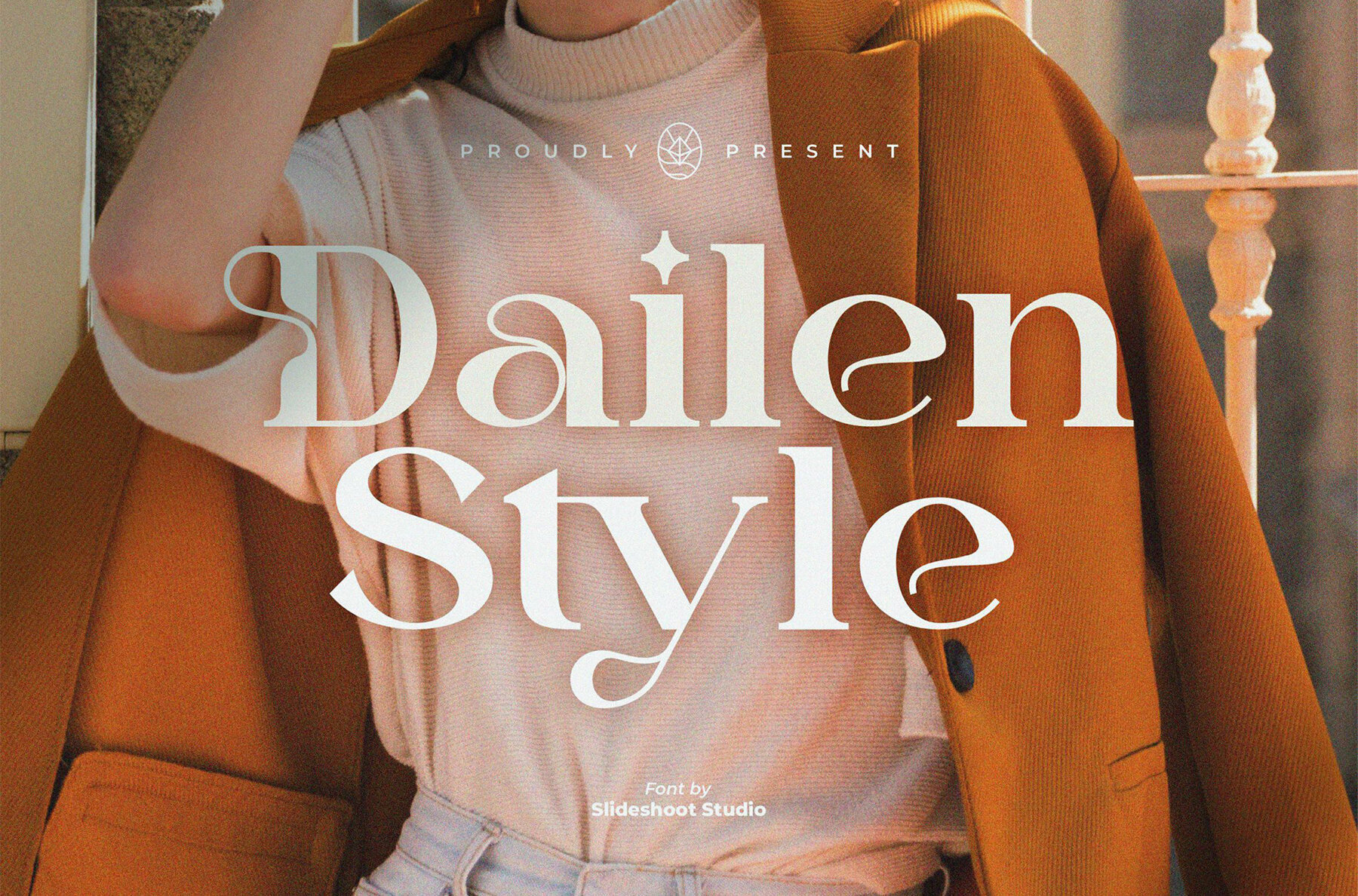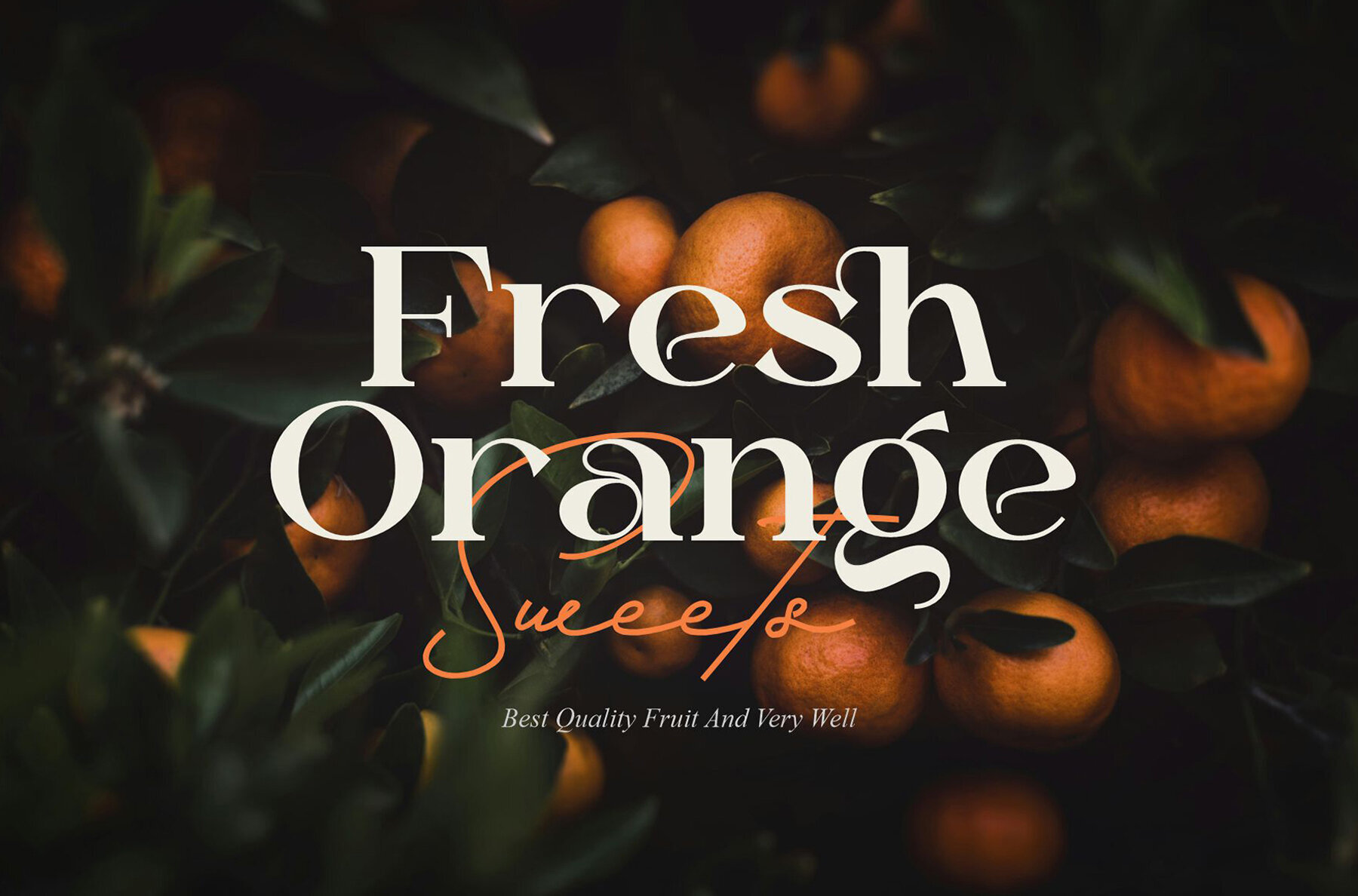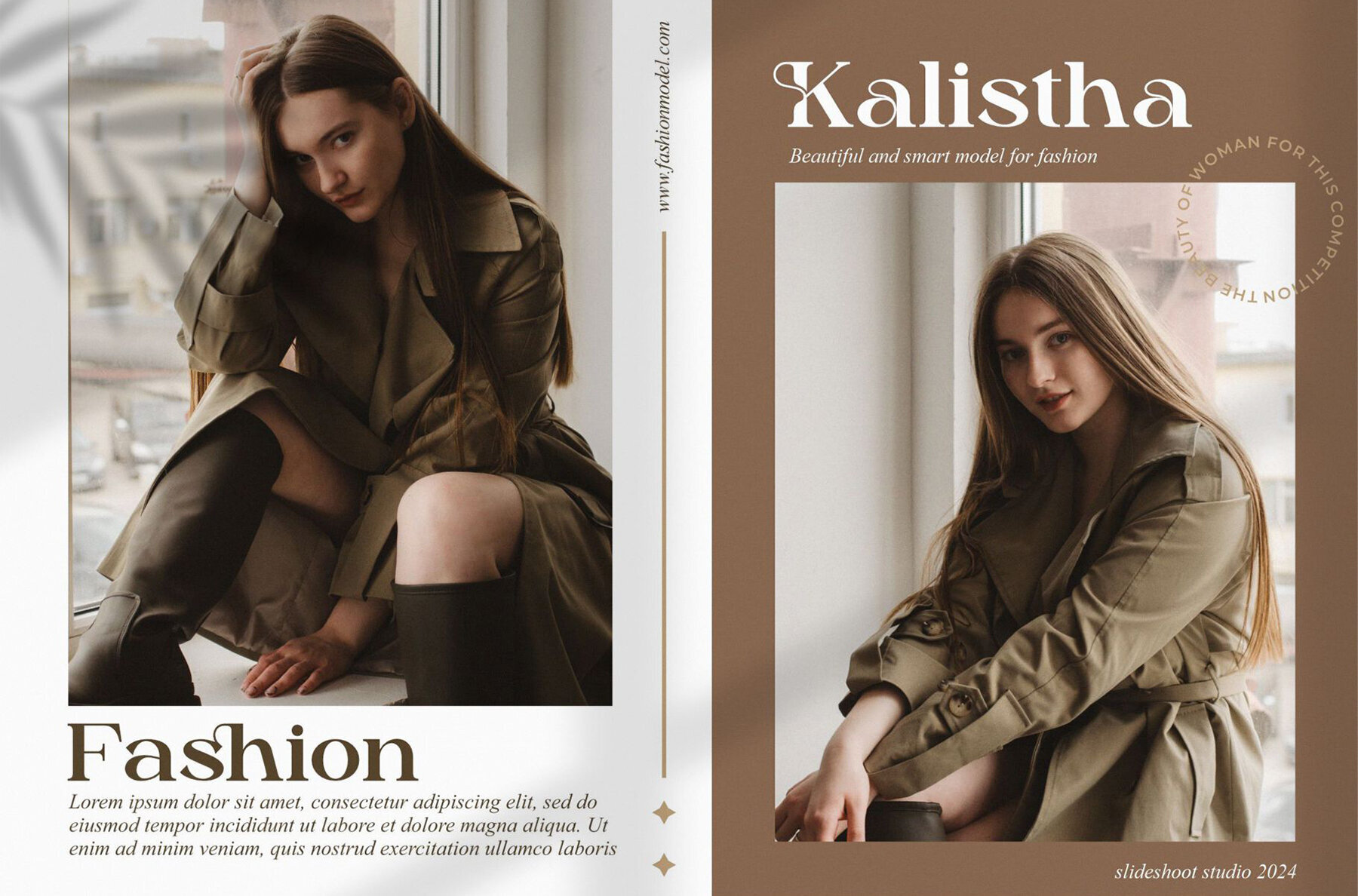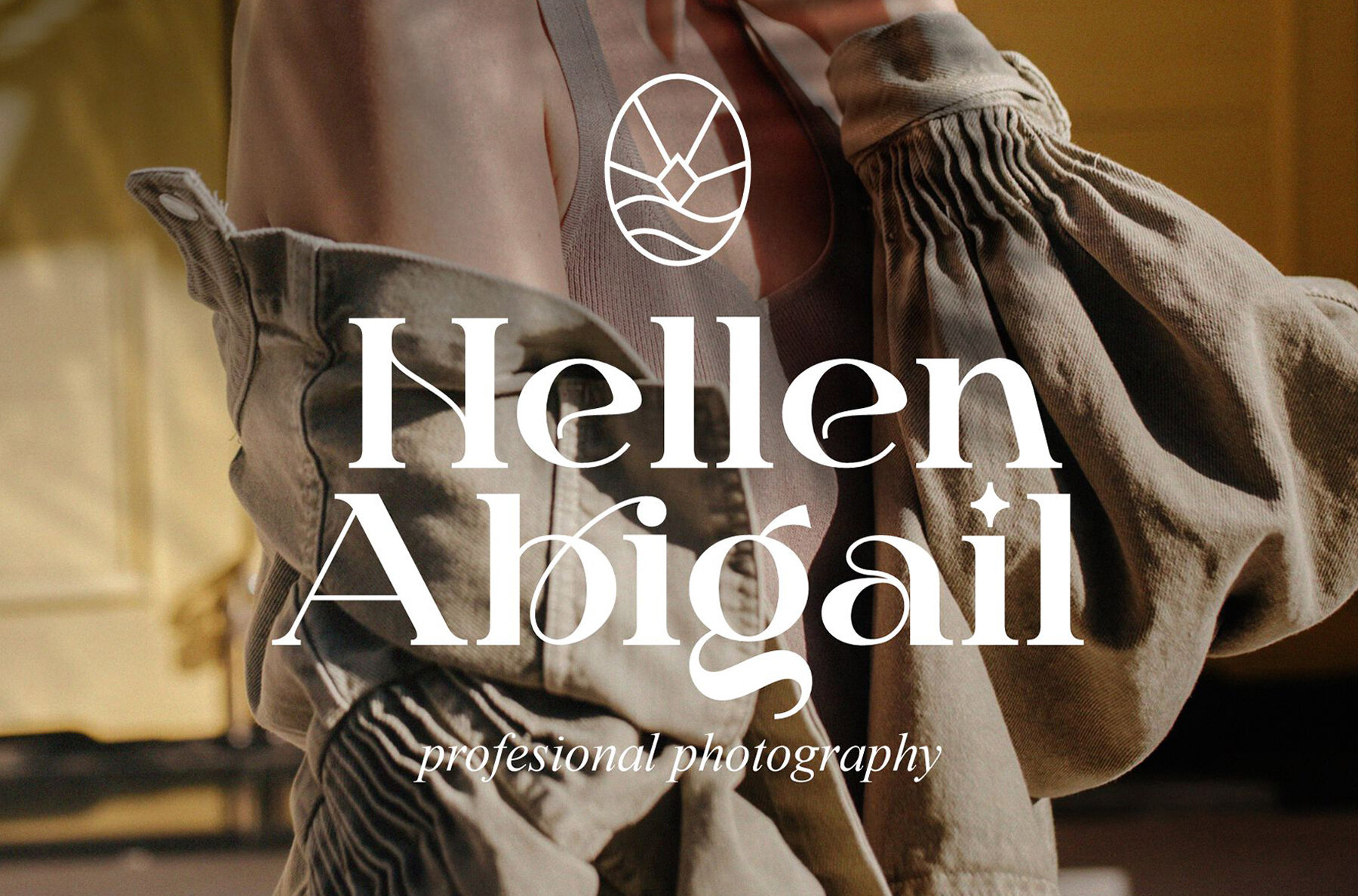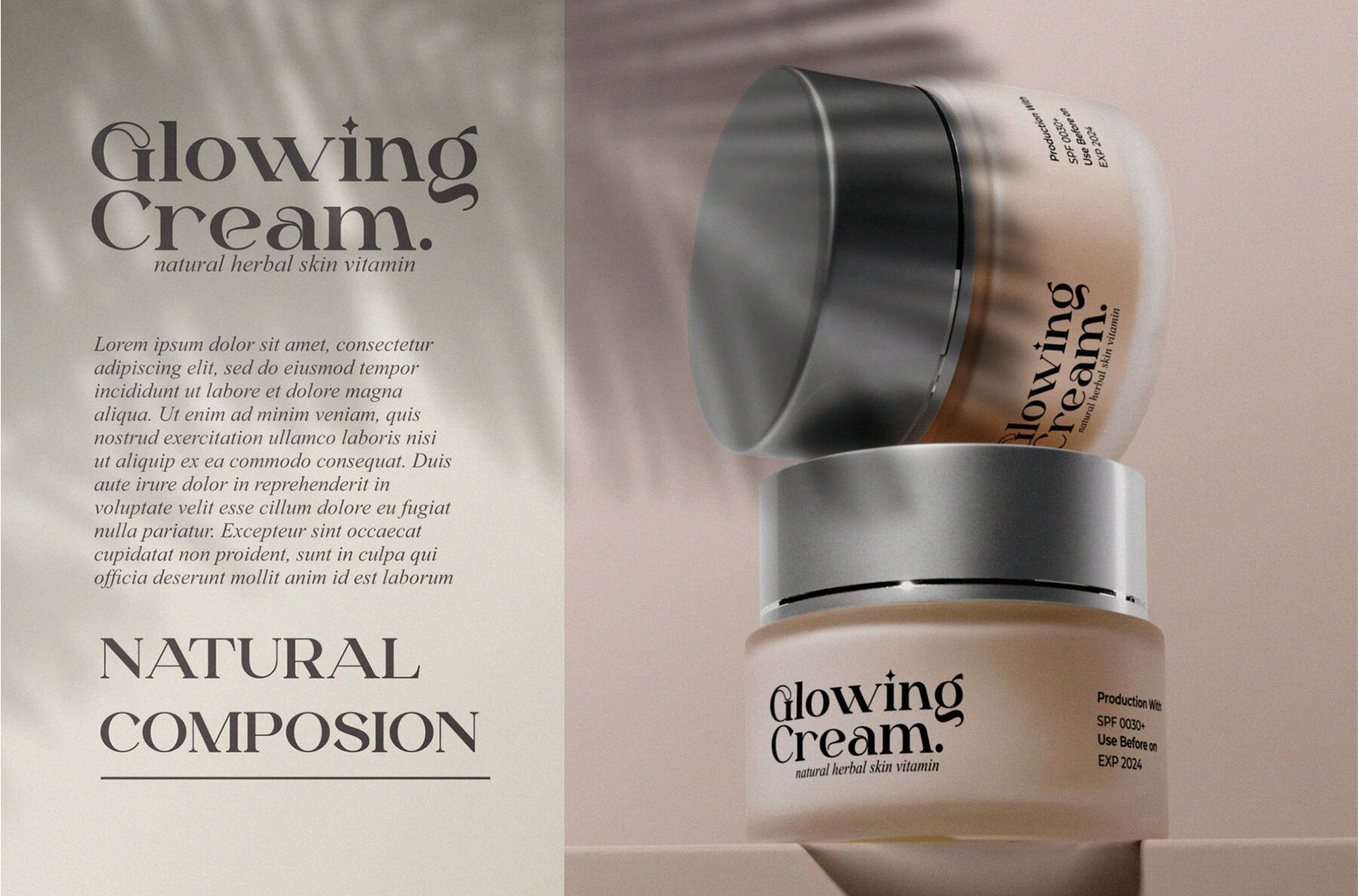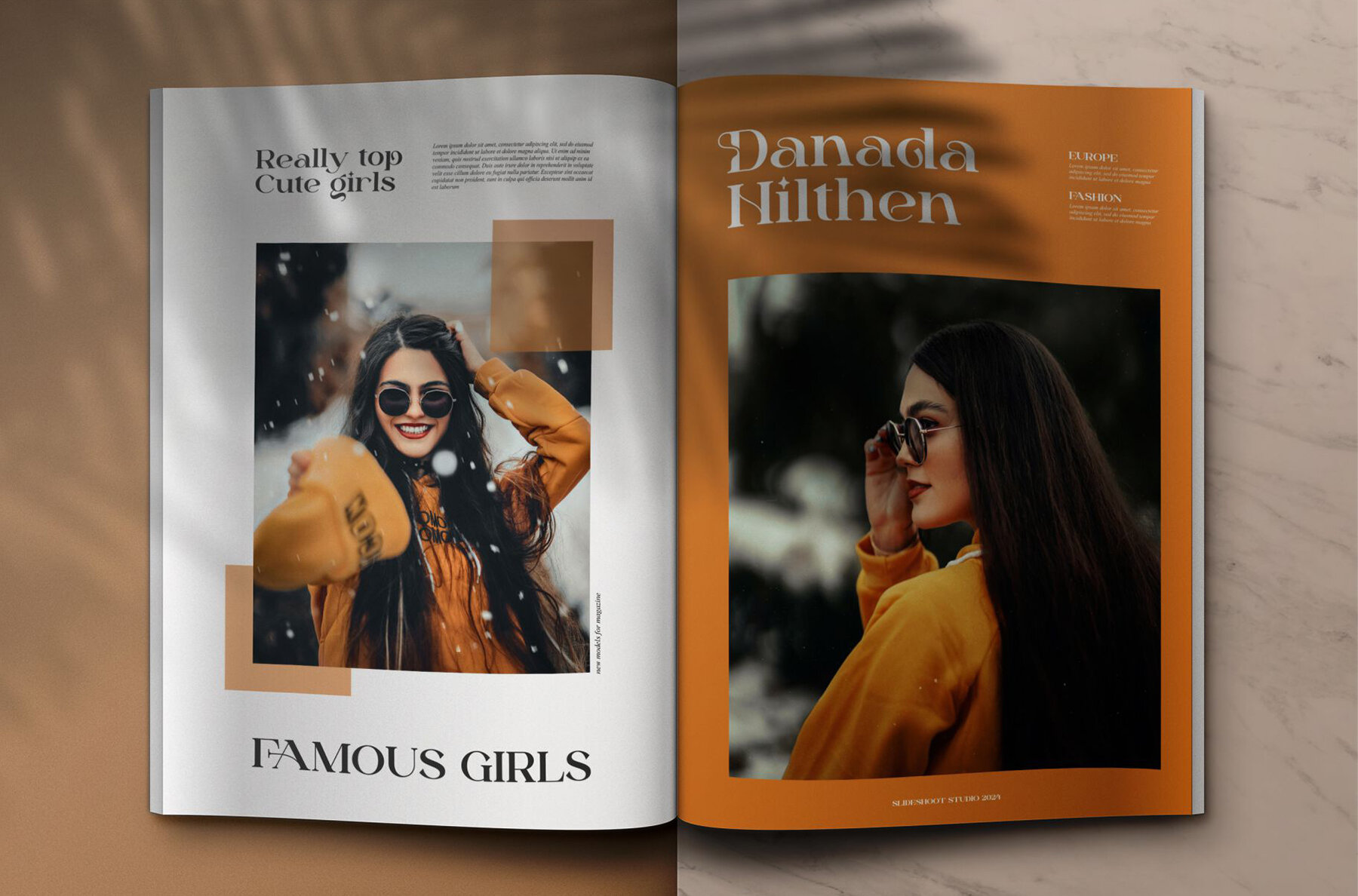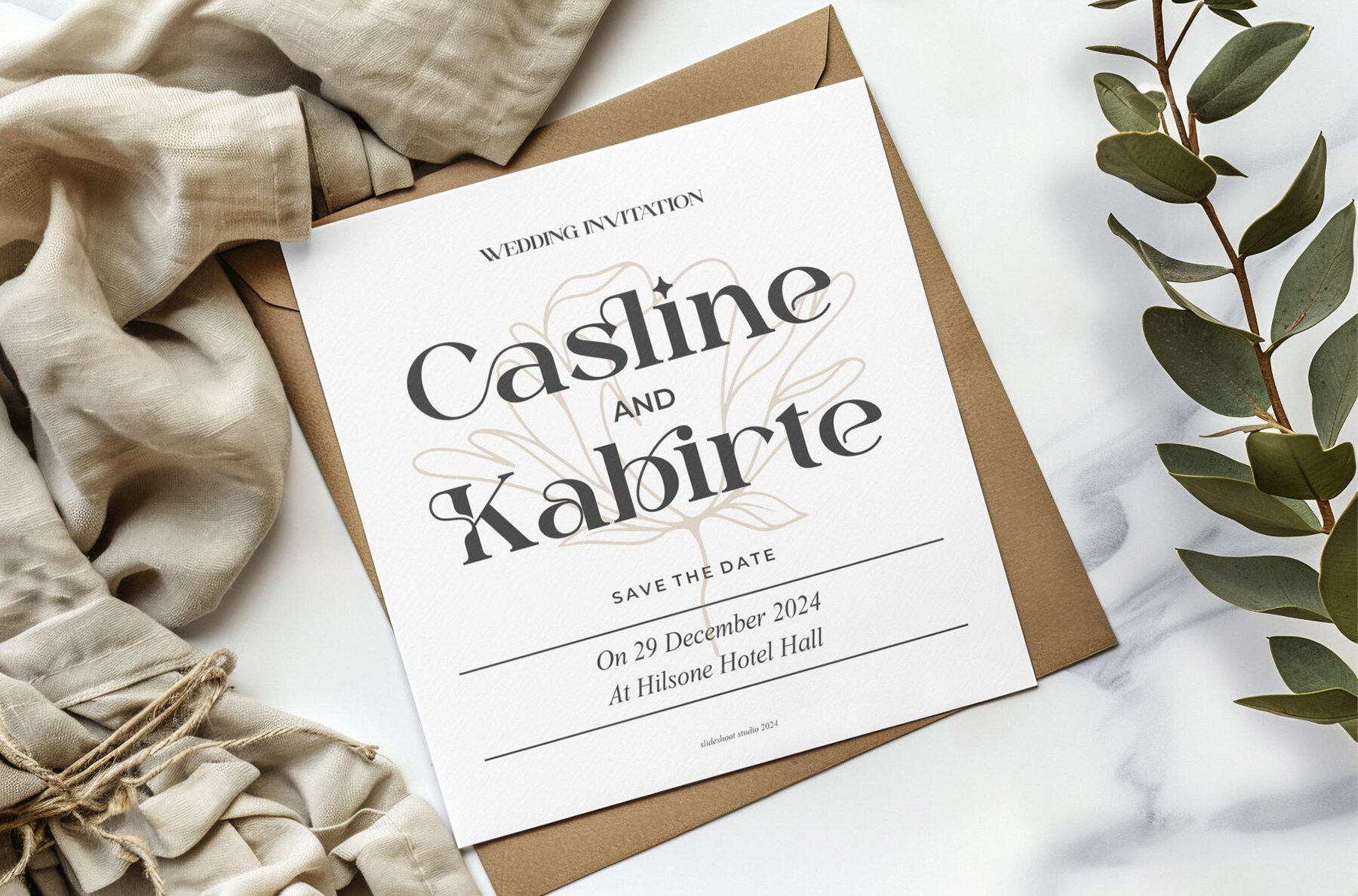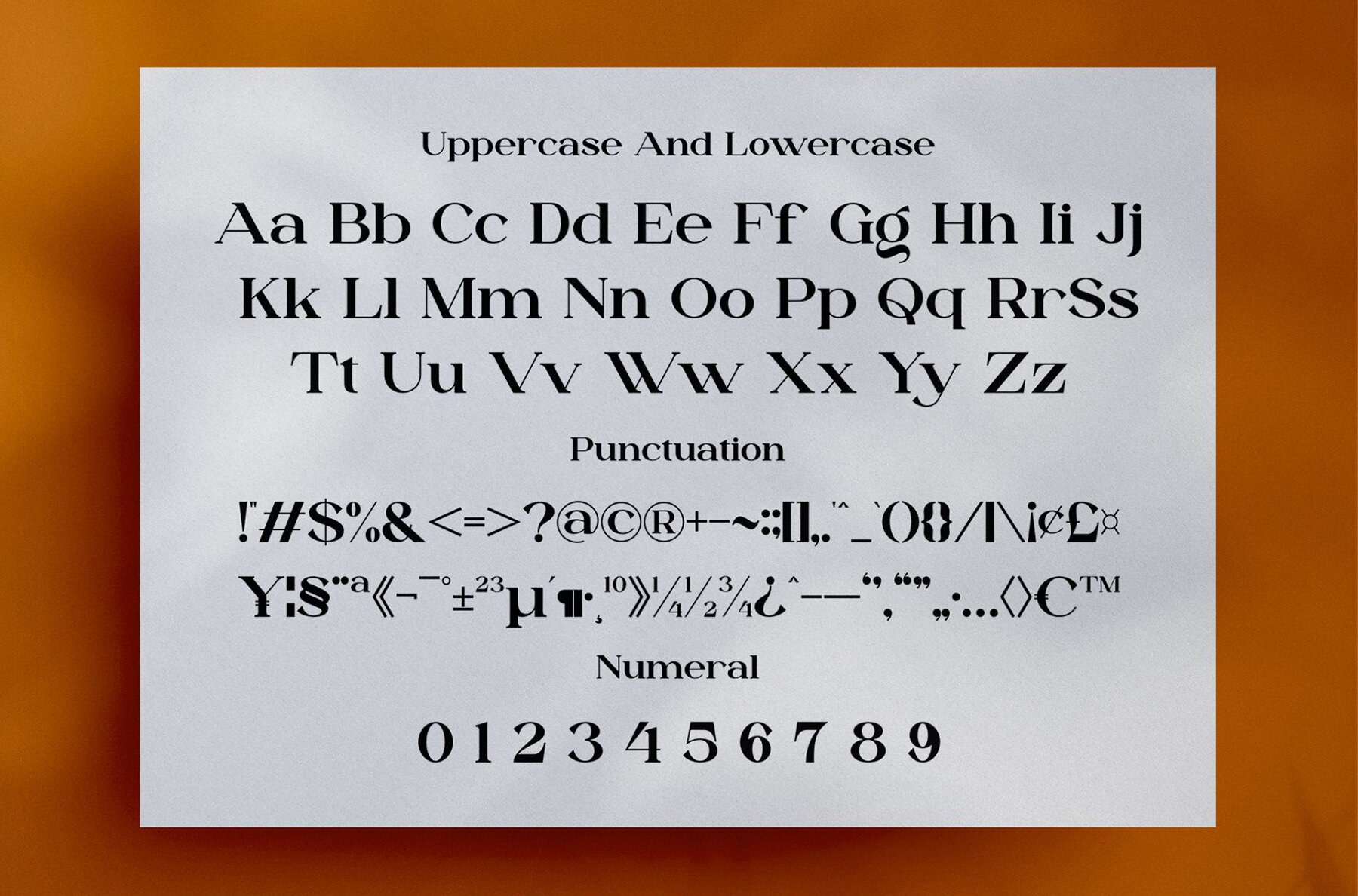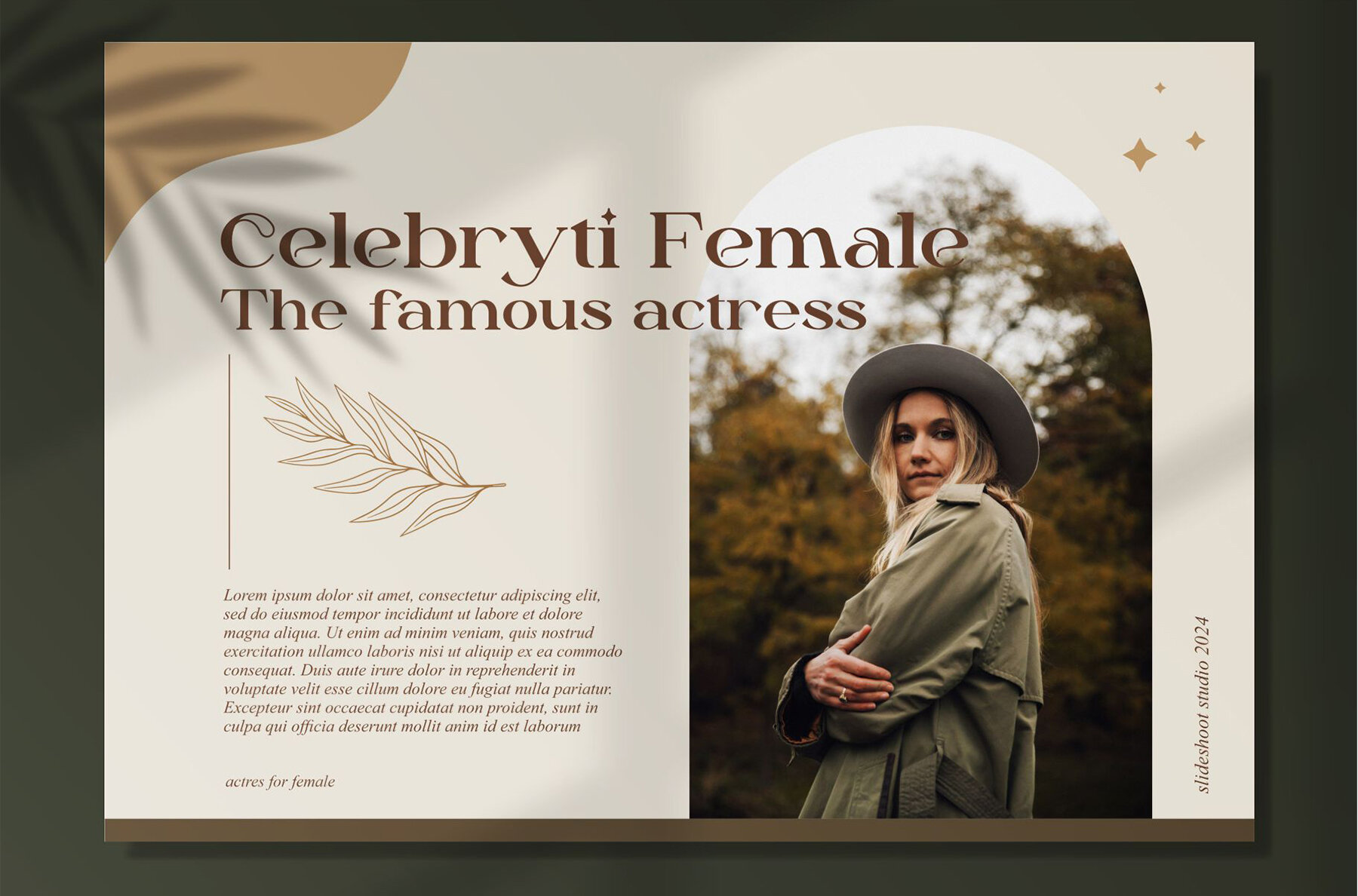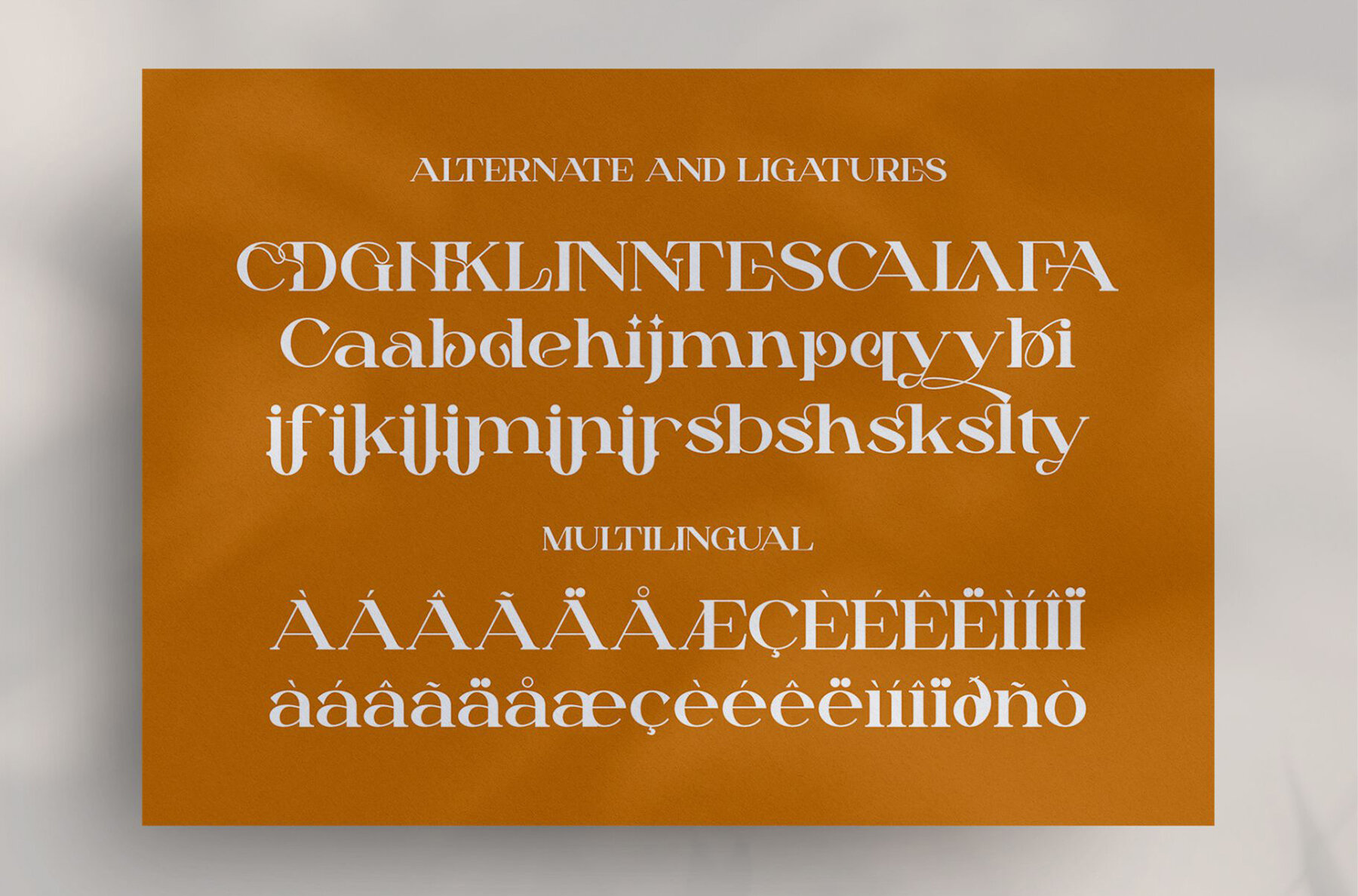
Dailen Font
Dailen Regular
Dailen Style Serif is an elegant and sophisticated font designed for branding and logo creation. This modern serif typeface offers a refined and graceful character that lends itself well to a variety of design applications. Ideal for invitation card designs, business cards, and book titles, Dailen Style Serif ensures your text stands out with class and style.
The font’s smooth, sophisticated structure exudes a sense of modernity while maintaining a timeless appeal. Stylish alternations and ligatures add a unique touch, enhancing its versatility in projects like movie titles, brand names, and more. Whether used for creating distinctive logos or captivating book covers, Dailen Style Serif is the ideal choice for designers seeking a blend of elegance and contemporary flair.